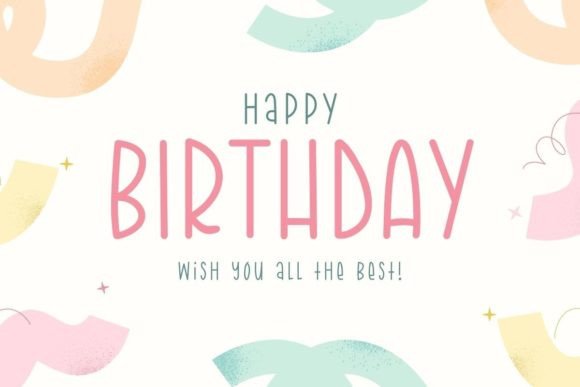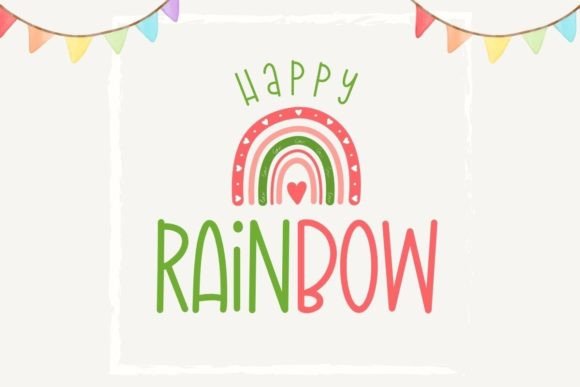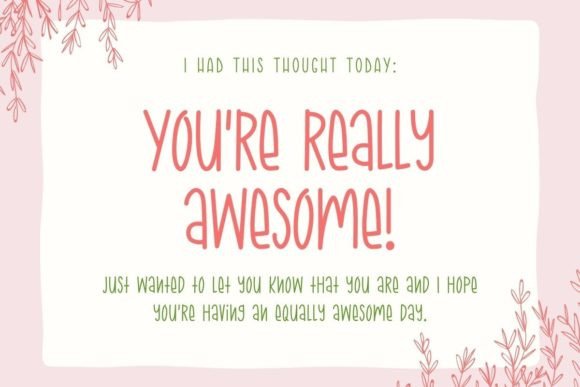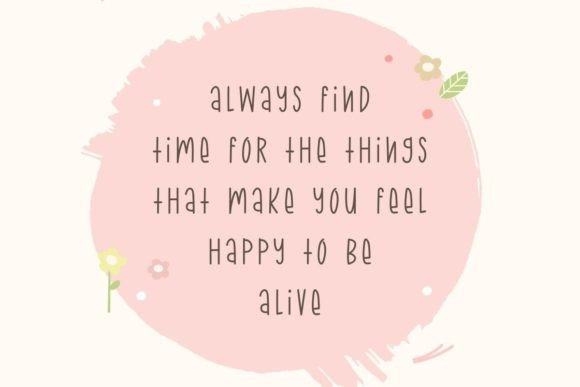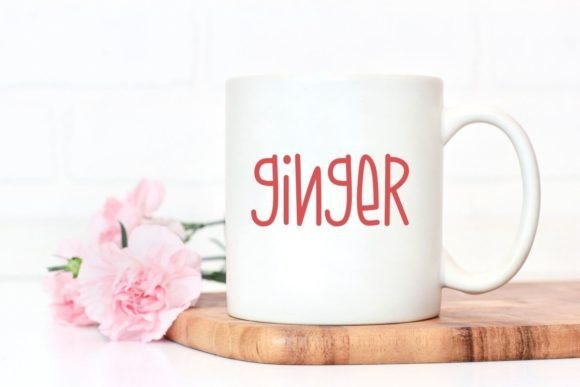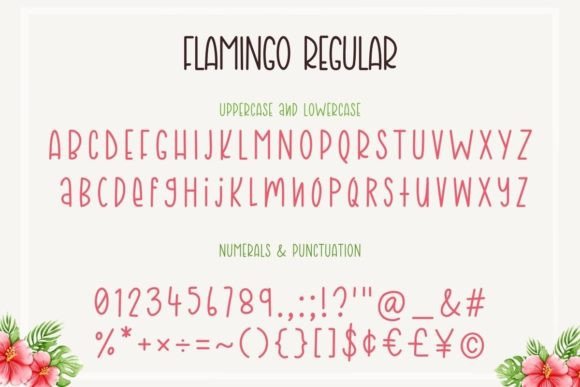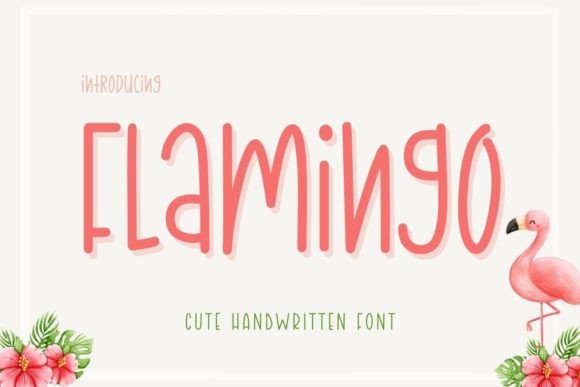
Introducing Flamingo Font: The Cute and Friendly Handwritten Font for Crafty Designs
Are you a designer or crafter looking for a font that can add a touch of warmth and personality to your projects? Look no further than Flamingo Font, a cute and friendly handwritten font that’s perfect for creating a wide range of designs. From banners and social media posts to mugs and stationery, Flamingo Font is the ideal choice for anyone who wants to add a bit of whimsy and charm to their crafty ideas.
What Makes Flamingo Font So Special?
Flamingo Font is a unique and versatile font that’s designed to be both fun and functional. Its handwritten style gives it a personal and approachable feel, making it perfect for designs that need to connect with the audience on a more emotional level. Whether you’re creating products for a craft fair, designing social media content, or simply looking for a font to use in your everyday projects, Flamingo Font is sure to become a favorite.
One of the best things about Flamingo Font is its incredible versatility. It’s a font that can be used in a wide range of design projects, including:
• Banners: Create eye-catching banners for events, sales, or promotions with Flamingo Font.
• Social Media Posts: Add a touch of personality to your social media posts and make them stand out from the crowd.
• Mugs: Design personalized mugs for gifts or everyday use with this adorable font.
• Cards: Create handmade cards for special occasions, such as birthdays, weddings, or holidays.
• Shirts: Design custom t-shirts, hoodies, or tote bags with Flamingo Font for a unique and stylish look.
• Stationery: Add a touch of whimsy to your notebooks, journals, or planners with this charming font.
Why Choose Flamingo Font?
So why should you choose Flamingo Font for your design projects? Here are just a few reasons:
• Cute and Friendly: Flamingo Font has a playful and approachable style that’s sure to delight your audience.
• Easy to Read: Despite its handwritten style, Flamingo Font is clear and easy to read, making it perfect for designs that need to communicate a message.
• Highly Versatile: Use Flamingo Font in a wide range of design projects, from digital designs to print materials.
• Unique and Creative: Stand out from the crowd with a font that’s truly one-of-a-kind.
Tips for Using Flamingo Font
To get the most out of Flamingo Font, here are a few tips to keep in mind:
• Experiment with Colors: Flamingo Font looks great in a variety of colors, so don’t be afraid to experiment and find the perfect hue for your design.
• Mix and Match: Combine Flamingo Font with other fonts or graphics to create a unique and eye-catching design.
• Keep it Simple: Don’t overcomplicate your design – Flamingo Font is perfect for simple, yet effective designs.
Flamingo Font is a cute and friendly handwritten font that’s perfect for designers and crafters who want to add a touch of personality to their projects. With its versatility, readability, and unique style, it’s the ideal choice for a wide range of design projects. So why not give Flamingo Font a try and see the difference it can make in your crafty ideas?
Whether you’re a seasoned designer or just starting out, Flamingo Font is sure to become a favorite in your design toolkit. So go ahead, get creative, and see what amazing designs you can create with Flamingo Font!